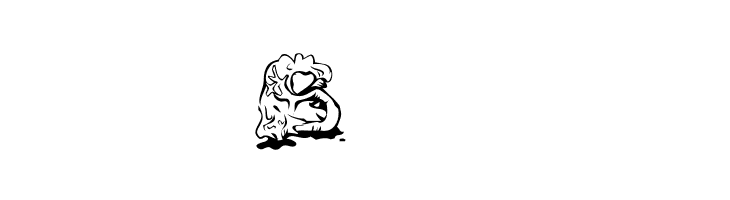
A bold, brush-style font with an energetic and rebellious appearance.
A bold, distressed font with a grunge aesthetic and geometric shapes.
A grungy, distressed font with splattered ink effects and dynamic strokes.
A bold, graffiti-style font with a dripping effect, perfect for edgy designs.
An edgy, graffiti-inspired font with sharp, angular lines and dramatic strokes.
A bold, graffiti-inspired font with sharp, angular lines and a rebellious aesthetic.
A bold, fragmented font with a chaotic and distressed appearance.
A bold, graffiti-inspired font with angular, sharp edges and a decorative style.
A gritty, distressed font with a brush-painted, chaotic style.
A bold, distressed font with sharp, angular edges and a rebellious aesthetic.
A bold, distressed font with a vintage, grunge aesthetic.
A bold, graffiti-inspired font with dynamic, flowing lines and an urban edge.
A bold, playful font with a graffiti-like, urban style.
A bold, distressed font with a grunge, graffiti-inspired style.
A bold, brush-style font with dynamic, hand-drawn strokes.
A bold, distressed font with a rugged, fragmented style and heavy texture.
A bold, graffiti-inspired font with dynamic, energetic strokes.
A bold, jagged font with a dynamic, graffiti-like style.
A bold, edgy, hand-drawn font with sharp, jagged edges and dynamic strokes.
A bold, angular font with a hand-drawn, graffiti-like style.
A bold, angular, and edgy font with a hand-drawn appearance.
A bold, textured font with intricate patterns and a rebellious vibe.
A bold, distressed font with a grunge, stamp-like appearance.
A bold, angular font with sharp edges and a dynamic, rebellious style.
A bold, distressed brushstroke font with an edgy, dramatic style.
A bold, distressed font with a grunge aesthetic and rugged texture.
A rugged, distressed font with jagged edges and uneven strokes.
A bold, graffiti-inspired font with dynamic, irregular shapes.
A bold, distressed font with a dripping, grunge aesthetic.
A bold, textured font with a brush-painted, rebellious style.
A dynamic, edgy italic font with sharp, jagged edges and high contrast.
A bold, distressed font with a fragmented, edgy design.
A distressed, grungy font with bold, uneven edges and a chaotic aesthetic.
A chaotic, ransom-note style font with high contrast and eclectic character designs.
A bold, ransom note-style font with high contrast and eclectic character design.